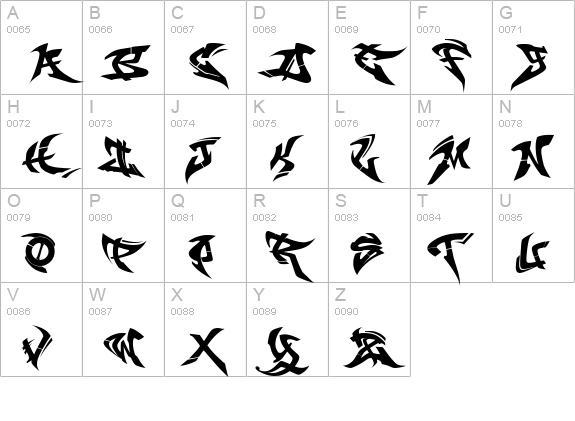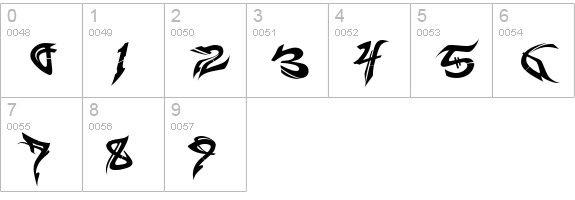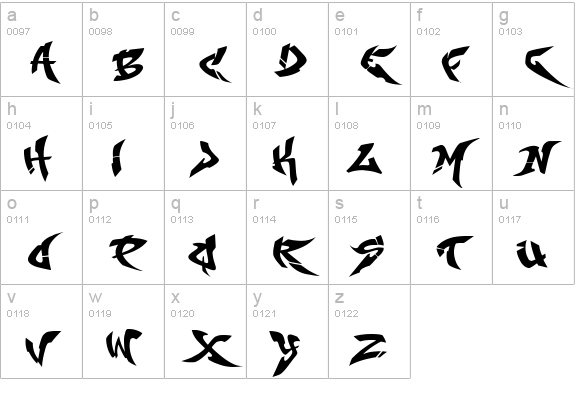
RaseOne Original Font Details
RaseOne Original is a bold, energetic font that exudes a sense of urban flair and modernity. With its sharp edges and dynamic letterforms, this font is perfect for capturing attention and making a statement. Its unique style and versatility make it suitable for a wide range of design projects, from logos and headlines to posters and apparel. What sets RaseOne Original apart is not only its striking appearance but also its accessibility. This font is available for free, allowing designers and creatives to freely experiment with its boldness and expressiveness. Whether you're a professional graphic designer or a hobbyist looking to add an edge to your projects, RaseOne Original offers you the freedom to unleash your creativity without any cost. Downloading RaseOne Original is a breeze, as it is readily available at FontsMarket.com. This online platform provides a convenient and user-friendly experience, ensuring that you can swiftly access this font and start incorporating it into your designs. With just a few clicks, you can have RaseOne Original at your fingertips, ready to infuse your projects with its bold personality. So why wait? Embrace the urban energy and contemporary style of RaseOne Original, and let your designs make a lasting impression. Download this free font today at FontsMarket.com and unlock the potential to create visually captivating and impactful designs that truly stand out.